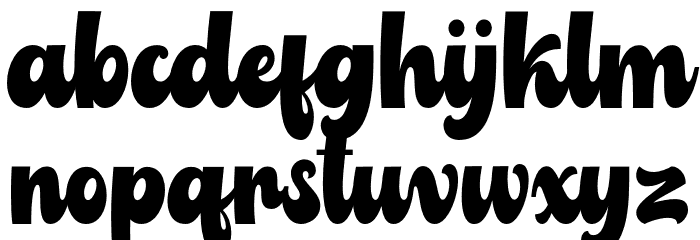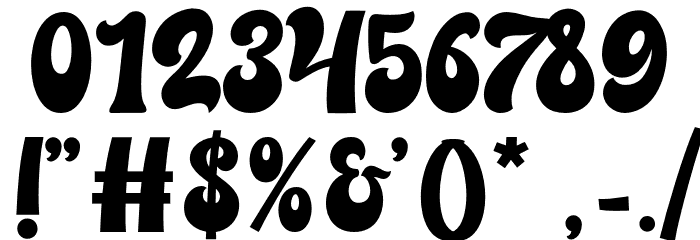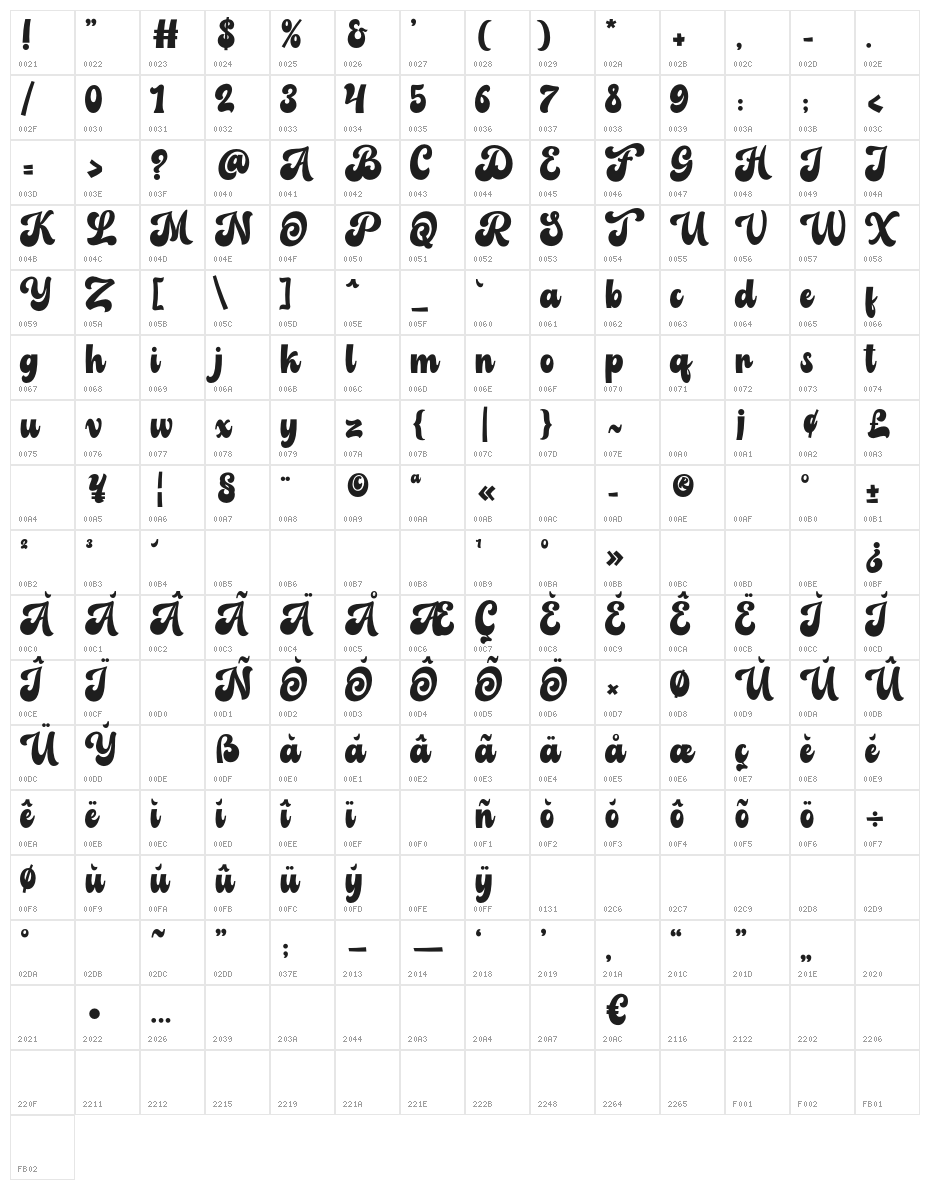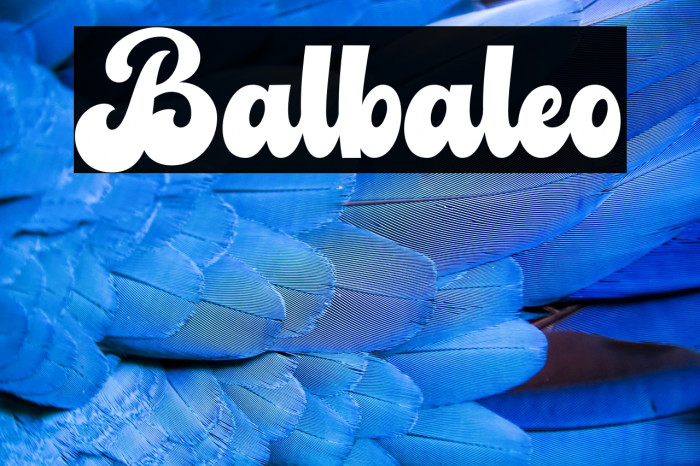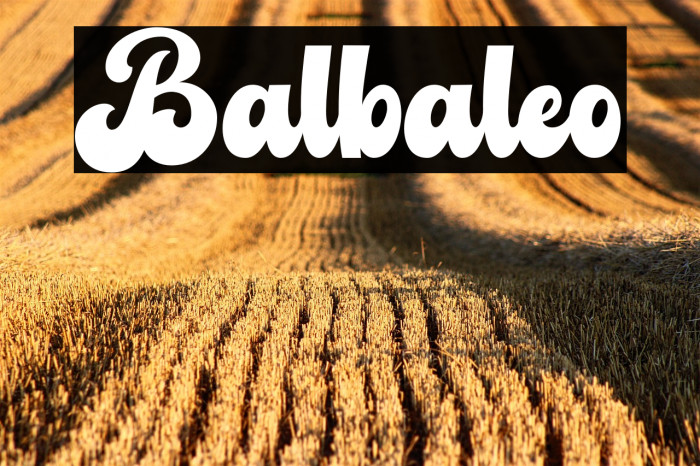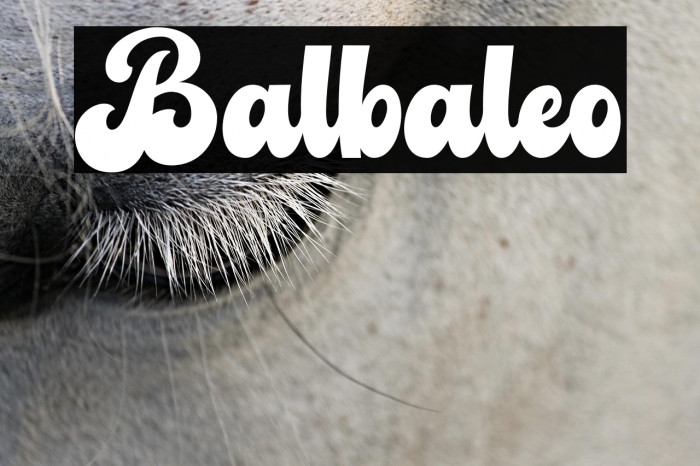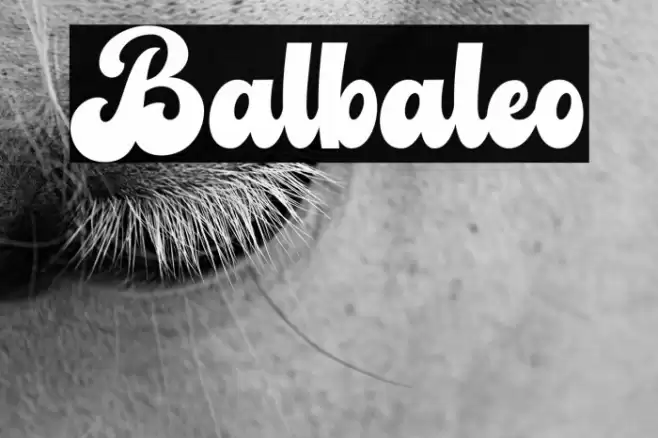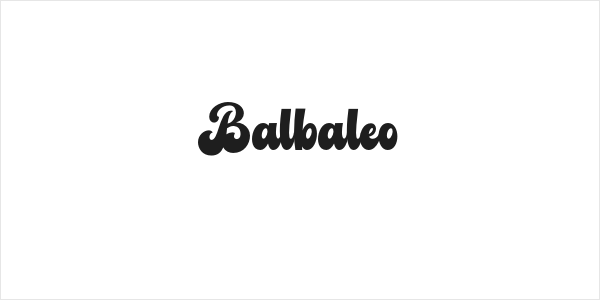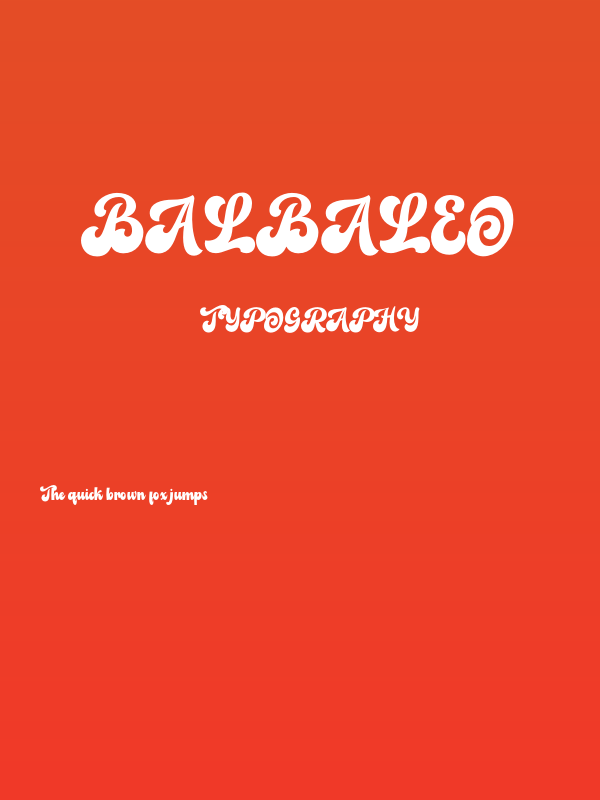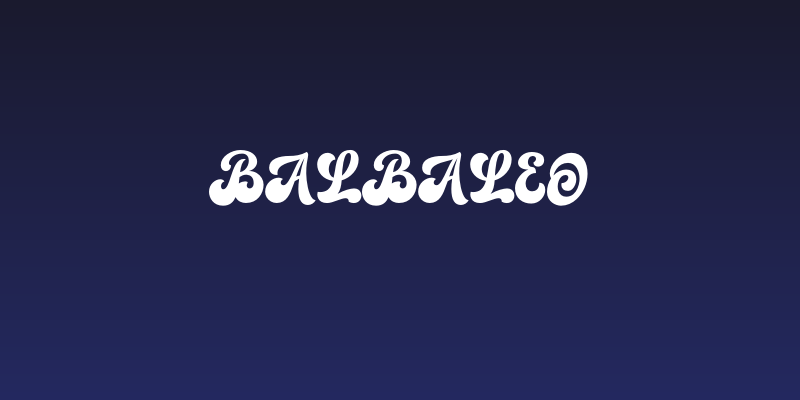
Balbaleo Font
This font features a bold and playful script style, characterized by its thick, rounded strokes and smooth curves. The uppercase letters are particularly expressive, with a flowing, cursive appearance that adds a sense of movement and energy. The lowercase letters maintain the same playful aesthetic, with a consistent stroke weight that ensures readability. Numbers and special characters are designed to match the overall style, making them suitable for a variety of creative applications. The font's boldness and unique character make it ideal for eye-catching designs.
A bold, playful script font with rounded strokes and smooth curves.
- Proposed Projects: Ideal for branding, posters, greeting cards, and playful design projects.